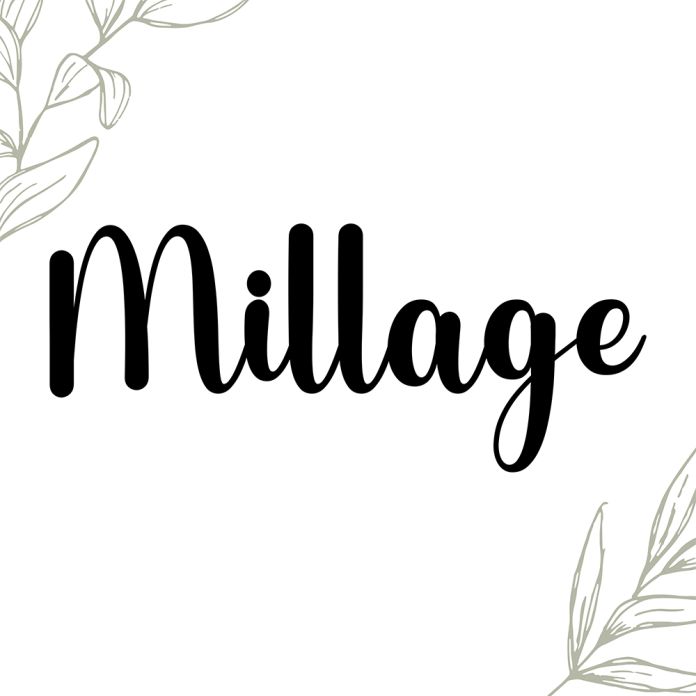
Millage Fonts is a font that exudes softness and elegance. With graceful strokes and a feminine touch, this font will elevate any design project to the highest level, be it branding, titles, wedding designs, invitations, signs, logos, labels, and more!